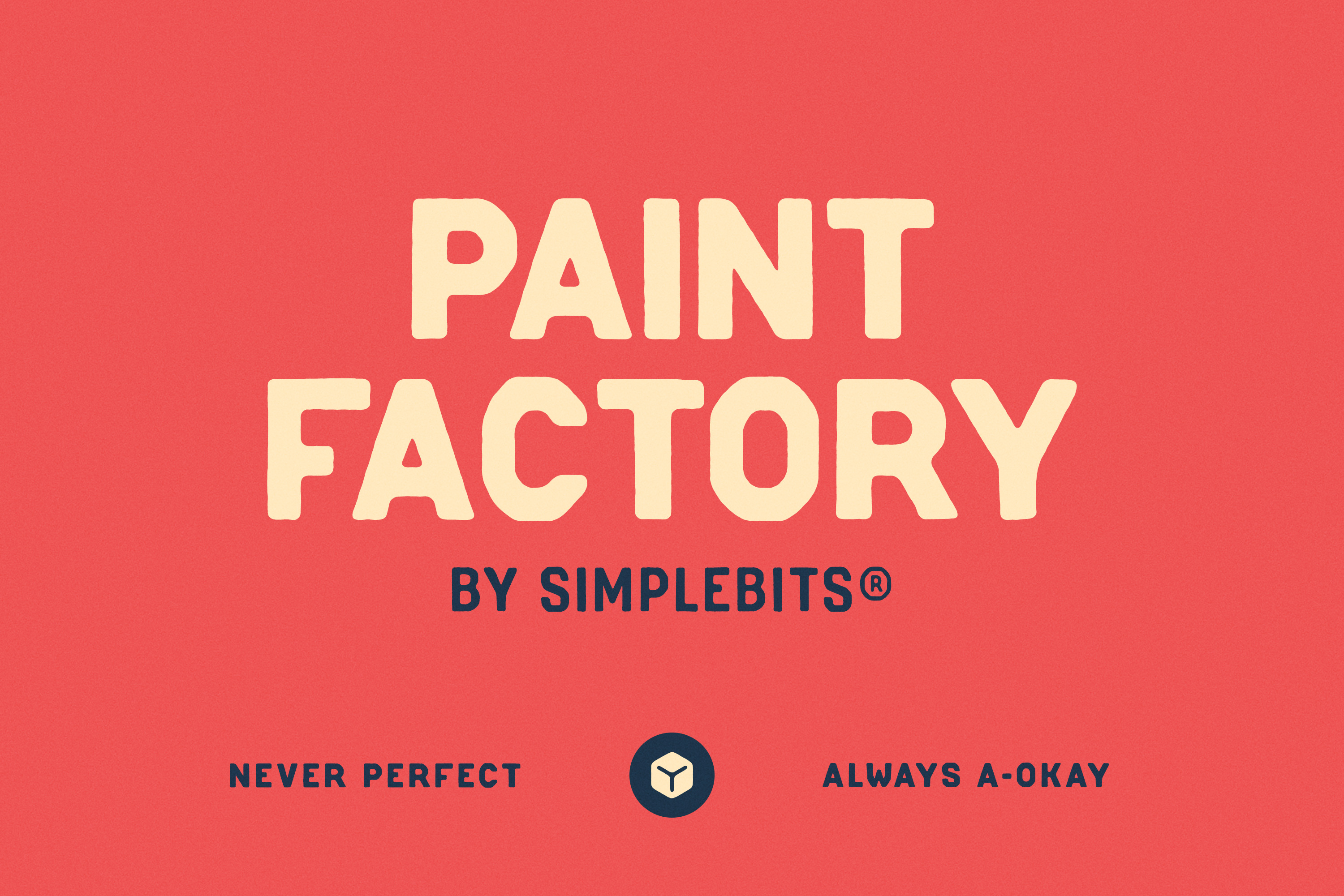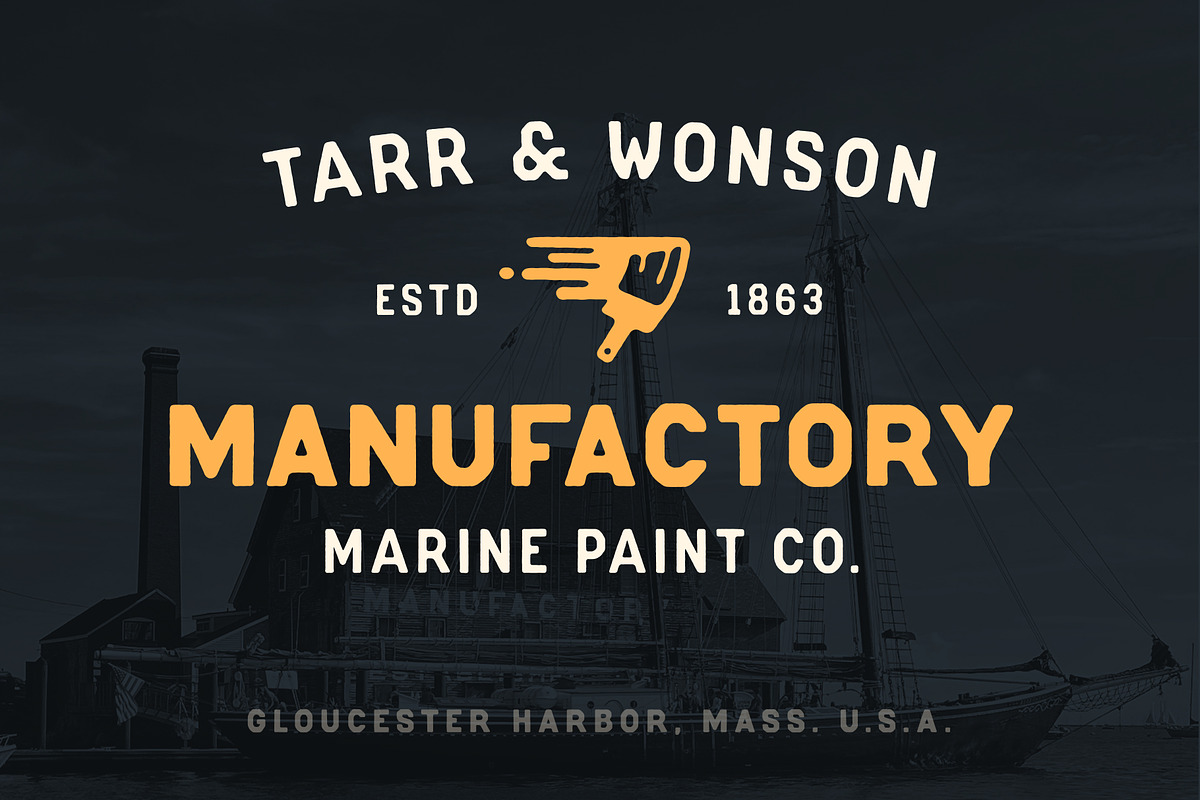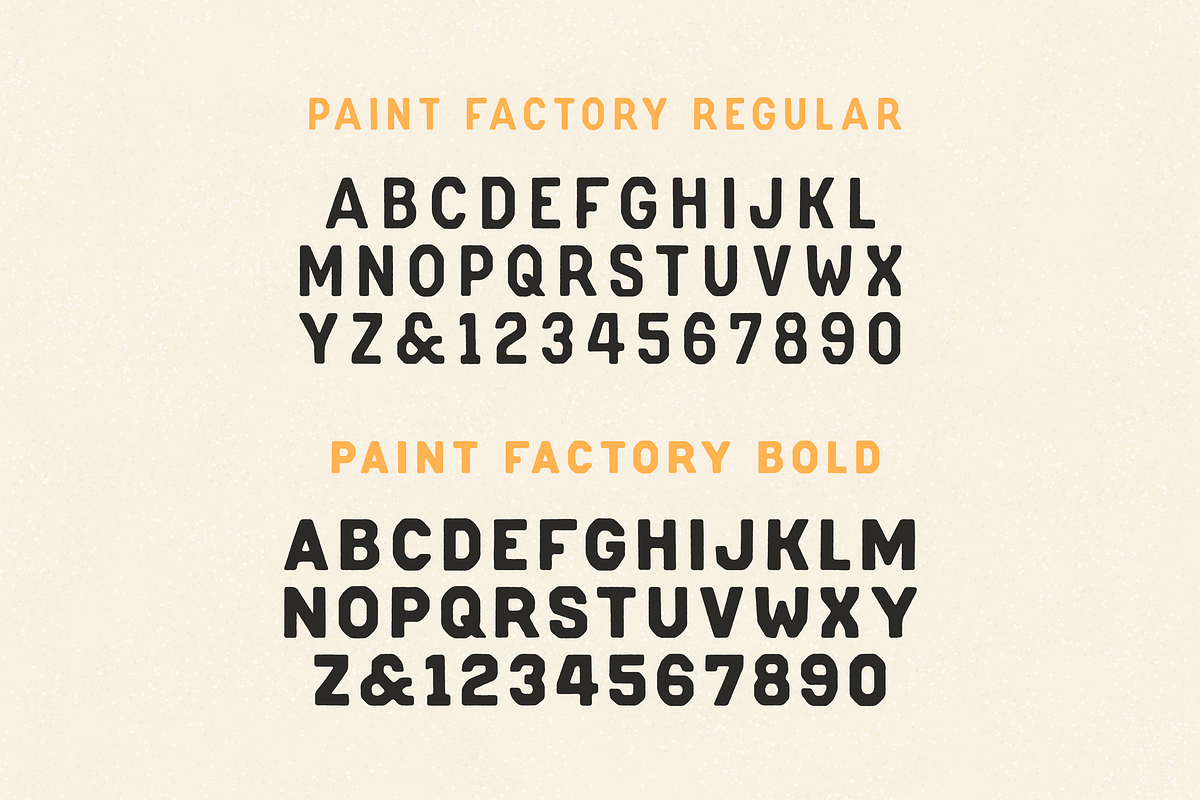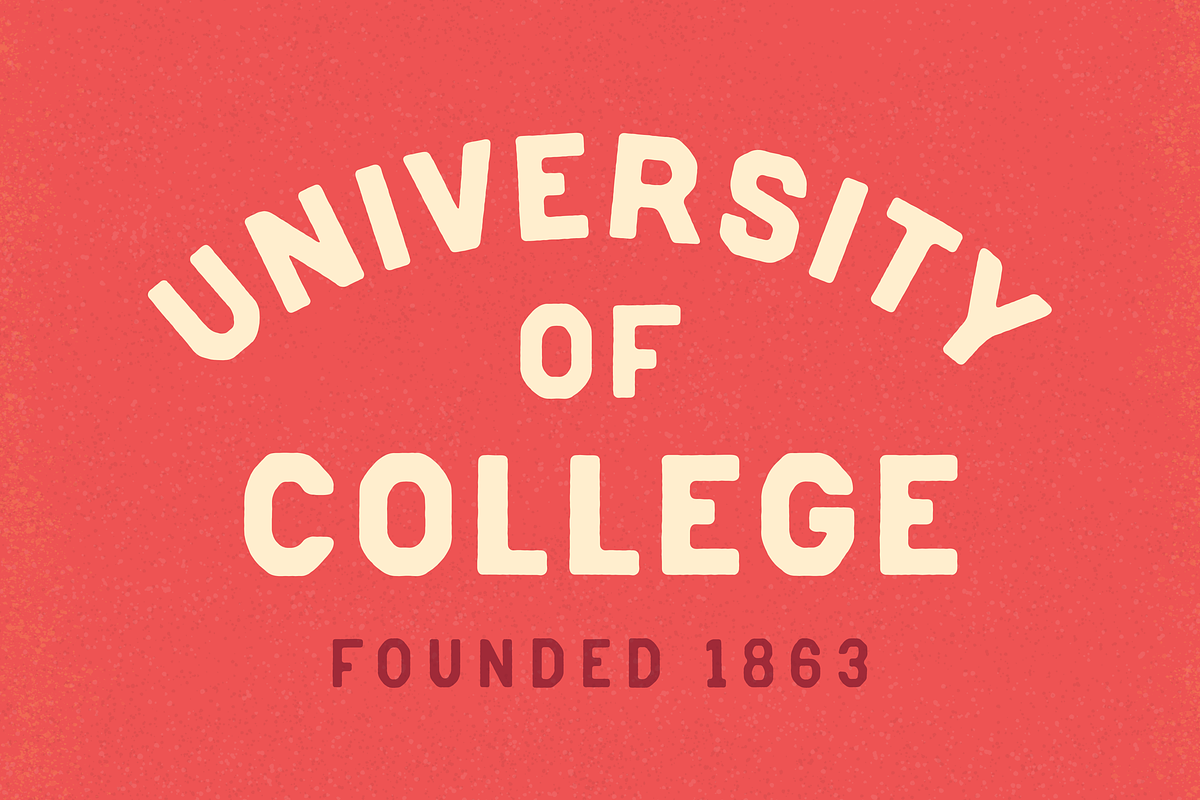
Paint Factory — Vintage letter font
For years, I've slipped into Gloucester Harbor aboard my trusty Boston Whaler, greeted by the old “MANUFACTORY” building. It sits there on your starboard side as you enter the famed fishing port. Around 1863, Tarr & Wonson built a facility to house their marine bottom paint factory—the first in the country. Its giant, worn, white-washed lettering always inspired me, the angular bends and the imperfectness of it all. It needed to become a typeface.
Paint Factory is a vintage-inspired, all-caps display typeface with its New England, weather-worn, roughness preserved. It makes a good stand-in for ironic, athletic or collegiate sweatshirt lettering—or any treatment calling for blue-collar, sturdy signage with layers of hand-painted character.
Included are two styles: Regular and Bold. A–Z, numerals, basic punctuation, plus a few alternate glyphs. We can't wait to see how you use this one.